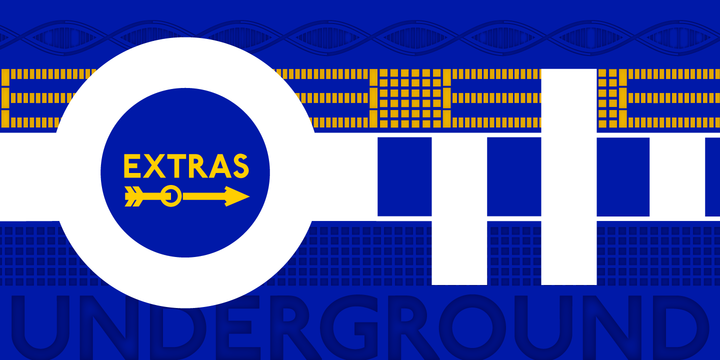
First seen on MyFonts: March 21st, 2000 P22 London UndergroundThe legendary sans serif design developed by Edward Johnston for the London Underground system in 1916 is available for the first time as a commercial font in an exclusive arrangement with the London Transport Museum. The font, as well as the all-caps bold version, is true to the original design, plus full international characters are also included. The extras feature graphic elements inspired by the design motifs of items including maps, tile patterns and seat covers. Not quite what you’re looking for? Try looking at more fonts like this. ‘P22 Johnson Underground Extras’ is a trademark of P22. |